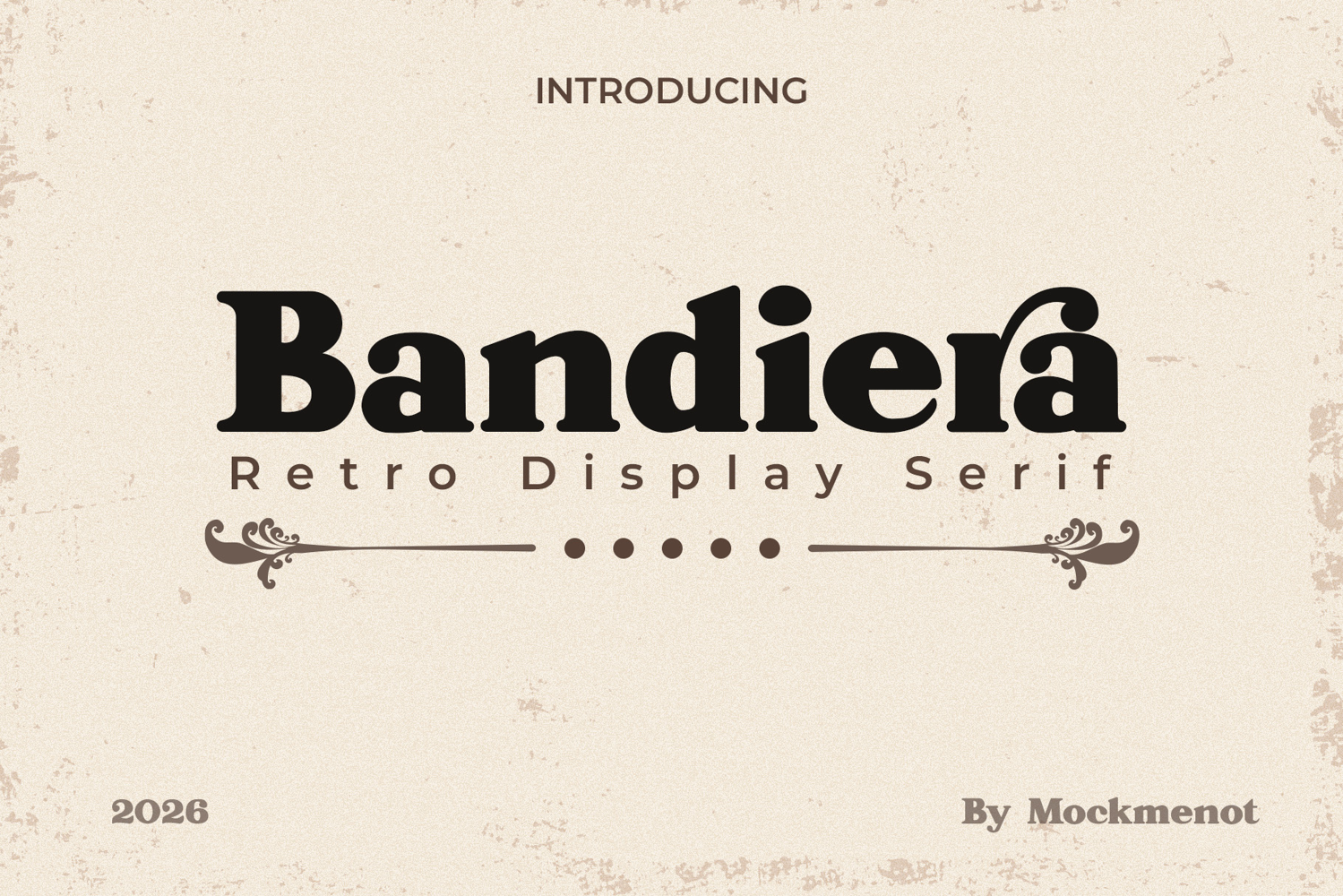
Bandiera Retro Bold Serif
Bandiera Retro Bold Serif Font is a bold vintage display typeface inspired by classic 1970s typography, retro packaging, old-school signage, and expressive editorial lettering.
Designed with strong serifs, sturdy proportions, and a distinctive nostalgic character, this font is ideal for logos, branding, posters, packaging, headlines, apparel, labels, album covers, and social media graphics.
Its bold structure gives your designs a confident visual presence while maintaining a warm and handcrafted retro feel.